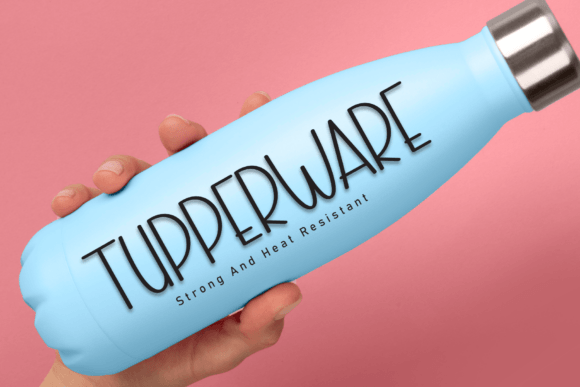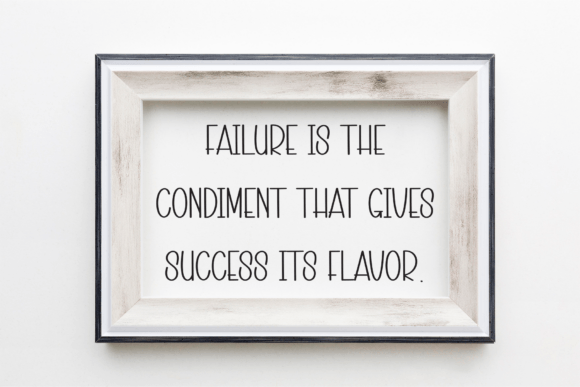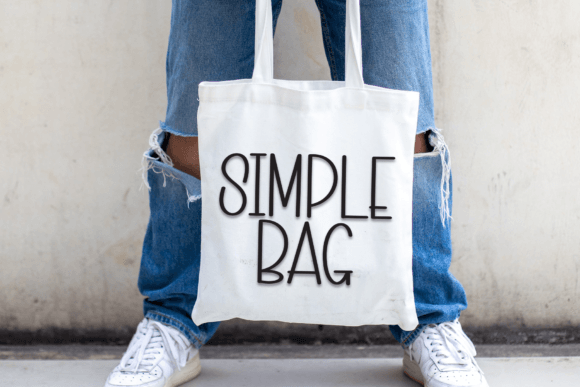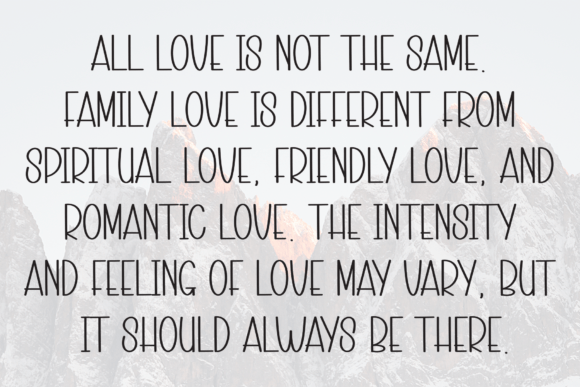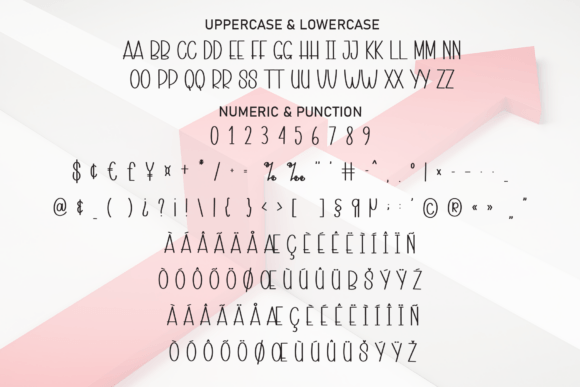
Introducing Advance Font: The Perfect Handmade Font for Creative Projects
Are you a designer or crafter looking for a unique and elegant font to elevate your creative projects? Look no further than Advance Font, a simple yet stunning handmade font that’s perfect for creating signature logos, watermarks, and more. In this article, we’ll dive into the features and benefits of Advance Font, and explore how it can be used to take your designs to the next level.
What is Advance Font?
Advance Font is a beautifully crafted handmade font that’s designed to add a touch of elegance and sophistication to any project. With its clean lines, subtle curves, and classic feel, this font is perfect for creating signature logos, watermarks, and other design elements that require a personal touch. Whether you’re a photographer, wedding planner, or crafty DIY enthusiast, Advance Font is the perfect choice for adding a professional and polished look to your work.
Key Features of Advance Font
• Handmade with love: Advance Font is carefully crafted by hand to ensure a unique and personal touch that’s hard to find in digital fonts.
• Simple and elegant: With its clean lines and classic feel, Advance Font is perfect for creating sophisticated designs that exude style and refinement.
• Perfect for logos and watermarks: Advance Font is ideal for creating signature logos and watermarks that add a professional touch to your work.
• Versatile and flexible: Advance Font can be used for a wide range of projects, from photography and wedding design to crafting and DIY.
Using Advance Font for Photography and Wedding Design
Advance Font is a perfect choice for photographers and wedding planners looking to add a professional and polished touch to their designs. Here are just a few ways you can use Advance Font to elevate your photography and wedding design:
• Signature logos: Use Advance Font to create a custom signature logo that adds a personal touch to your photos and marketing materials.
• Watermarks: Add a professional and elegant watermark to your photos with Advance Font, protecting your work while also showcasing your style.
• Wedding invitations: Use Advance Font to create beautiful and elegant wedding invitations that set the tone for a sophisticated and memorable event.
Tips for Using Advance Font in Your Designs
Here are a few tips for getting the most out of Advance Font in your designs:
• Experiment with different sizes and colors: Advance Font looks great in a variety of sizes and colors, so don’t be afraid to experiment and find the perfect combination for your design.
• Pair with other fonts: Advance Font pairs beautifully with other fonts, so try combining it with a bold or playful font to add contrast and interest to your design.
• Use it consistently: To create a cohesive and professional look, use Advance Font consistently throughout your design, whether it’s a logo, watermark, or wedding invitation.
Advance Font is a beautiful and versatile handmade font that’s perfect for designers and crafters looking to add a touch of elegance and sophistication to their creative projects. With its clean lines, subtle curves, and classic feel, this font is ideal for creating signature logos, watermarks, and other design elements that require a personal touch. Whether you’re a photographer, wedding planner, or crafty DIY enthusiast, Advance Font is the perfect choice for taking your designs to the next level.